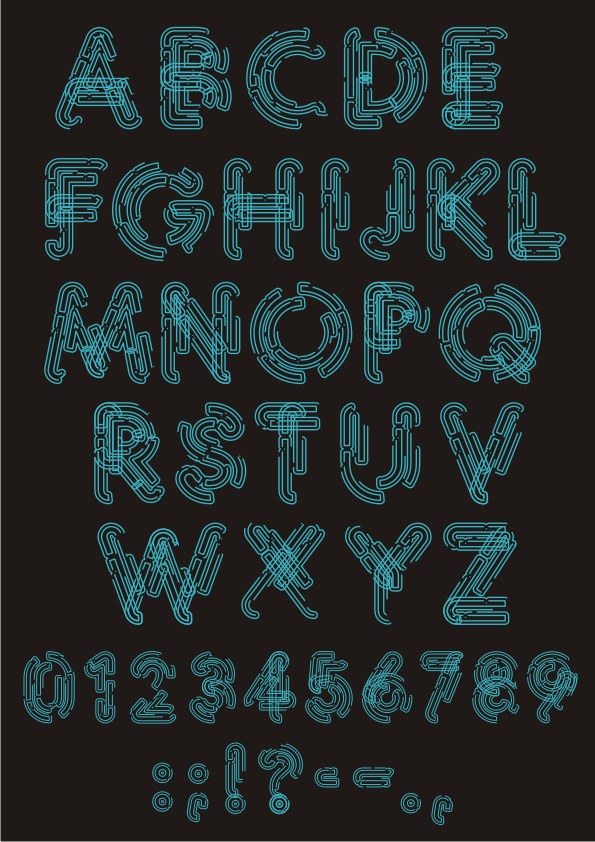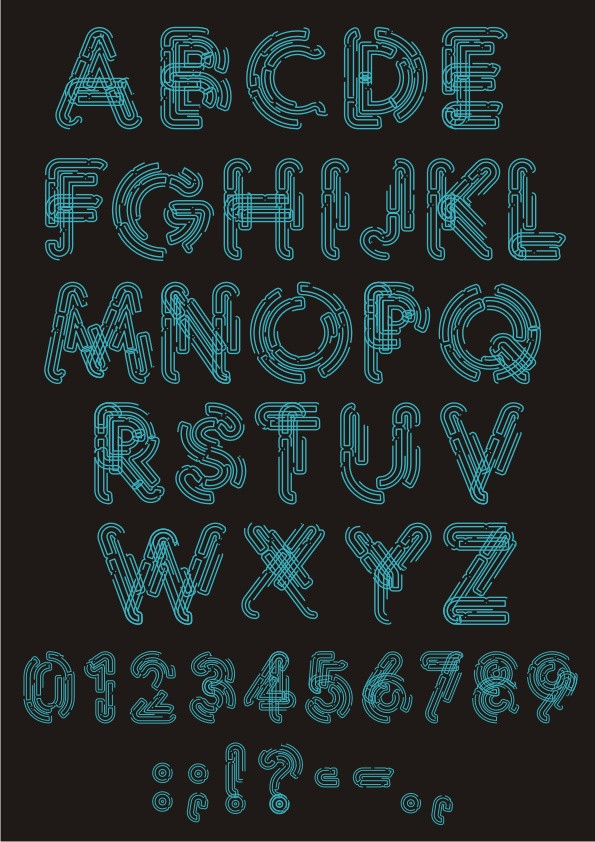
Futuristic Circuit Board Alphabet and Numeric Typeface Free Vector
Complete vector set of uppercase alphabet letters, numbers 0-9, and punctuation marks designed with a futuristic circuit board style in blue lines on a dark background, resembling digital technology and electronic circuits.